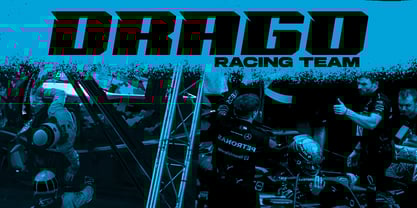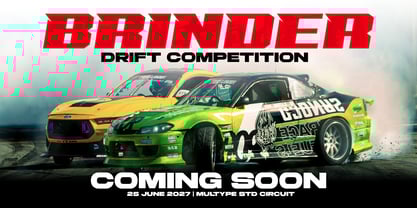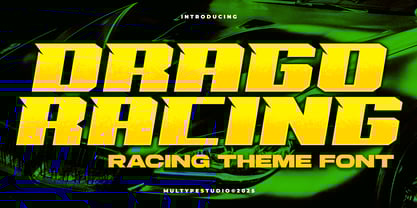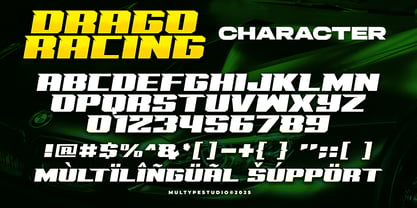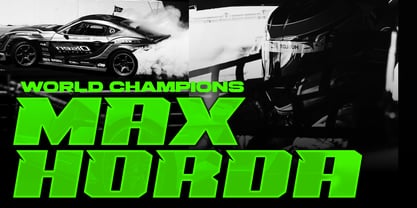
Drago Racing
by Multype Studio
The Drago Racing Font Family was designed by Mulia Yanto and published by Multype Studio. Drago Racing contains 1 styles. More about this family
Drago Racing is a bold racing display font designed for speed, power, and performance. Inspired by motorsport aesthetics, this modern sans-serif typeface captures the adrenaline and energy of the racing world. With strong geometric shapes, dynamic cuts, and a futuristic style, it’s perfect for sports branding, car logos, esports designs, and speed-themed posters. This high-impact racing font brings a professional and aggressive look to any design — ideal for motocross graphics, automotive titles, gaming logos, and performance advertising. Featuring all caps letters, numerals, punctuation, Works on PC / Mac, Simple installations, PUA Encoded Characters, Fully accessible without additional design software, and multilingual support, Drago Racing delivers versatility and bold visual appeal for your creative projects. Drago Racing Font it’s perfect for logotype racing product, racing game covers, sports events, automotive posters, automotive magazine covers, branding, product design, labels and other creative project. Thank you for your purchase! Hope you enjoy with our font!
Designers: Mulia Yanto
Foundry: Multype Studio